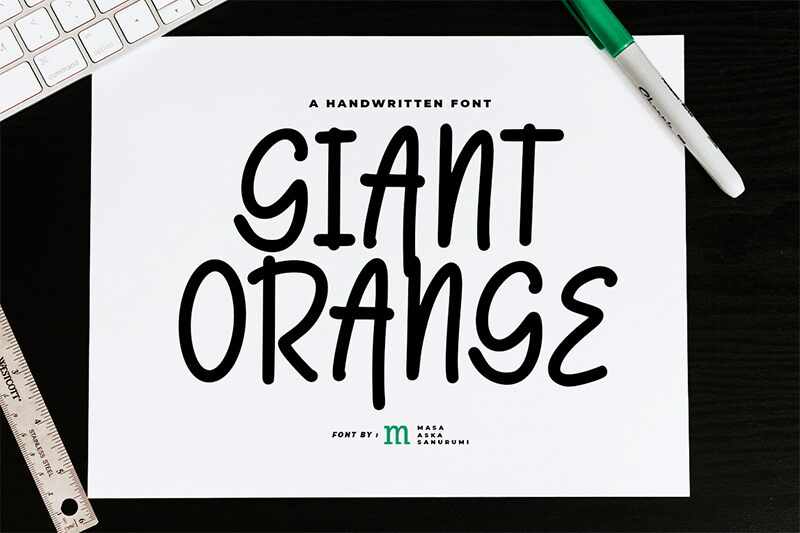
Giant Oranges is a captivating handwritten font crafted by the talented designer Masa Aska Sanurumi. With its playful and organic strokes, this font exudes a warm and inviting aesthetic, effortlessly conveying a sense of authenticity and handcrafted charm. The irregular, yet harmonious letter forms and varied line widths lend the design a unique, artisanal quality that sets it apart from more traditional typefaces.
This versatile font is well-suited for a wide range of design applications, from editorial layouts and packaging design to branding and marketing materials. Its distinctive personality can add a touch of personality and individuality to any project, whether it's used for eye-catching headlines, decorative text, or impactful call-to-actions. The font's flexibility and expressive nature make it a compelling choice for designers seeking to create a distinctive and memorable visual identity.